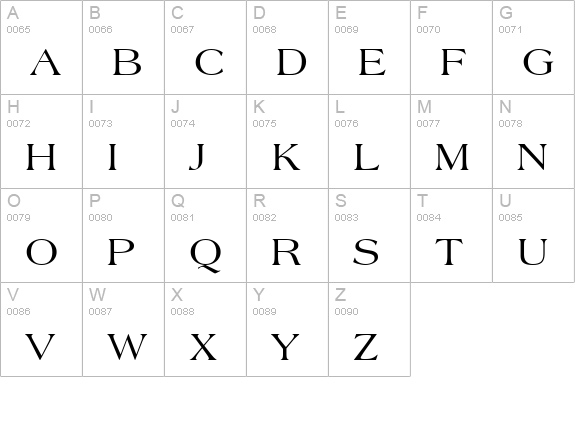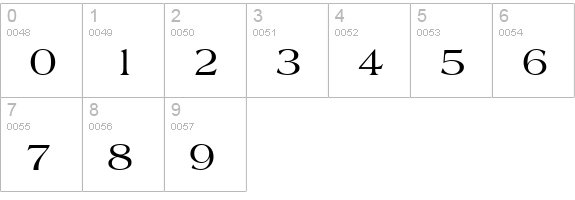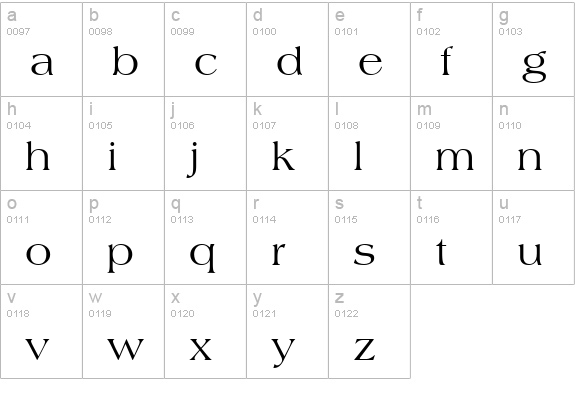
Countryside SSi Font Details
Countryside SSi font is a charming and versatile typeface that exudes a sense of warmth and nostalgia. With its rustic yet elegant appearance, this font is perfect for projects that require a touch of rural charm. The Countryside SSi font features a unique blend of classic and modern elements, making it suitable for a wide range of applications, from invitations to branding materials. One of the best things about the Countryside SSi font is that it is completely free to download. You can easily access this delightful font at FontsMarket.com, where you can add it to your collection without any cost. Whether you're working on a personal project or a professional design, the Countryside SSi font is sure to add a touch of character and style to your work. Download it today and let your creativity flourish with this lovely typeface.